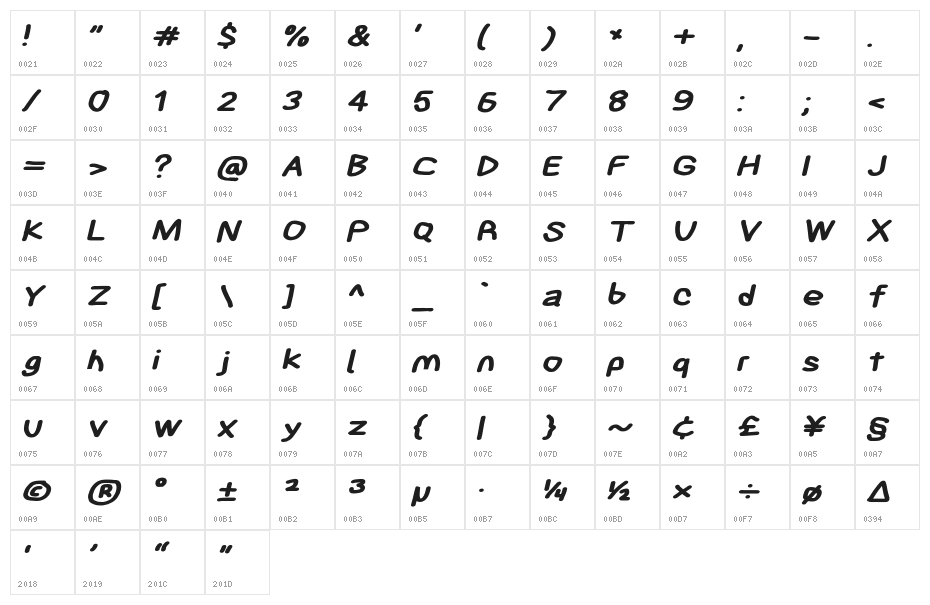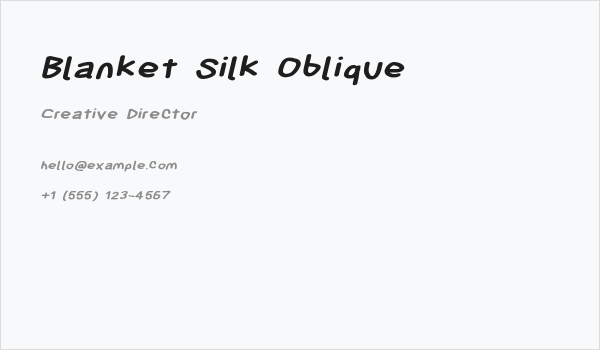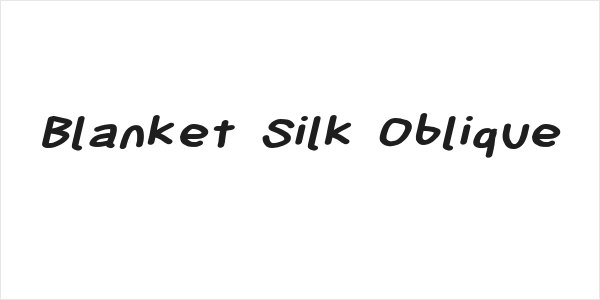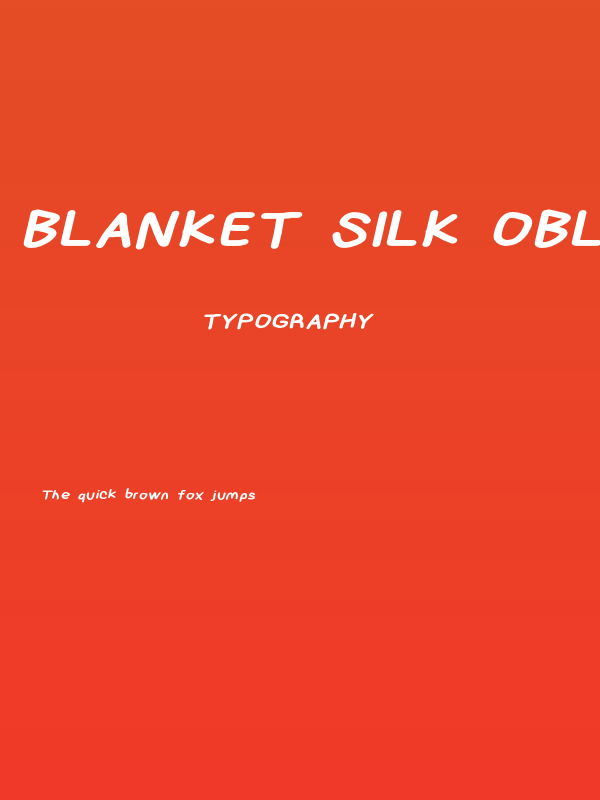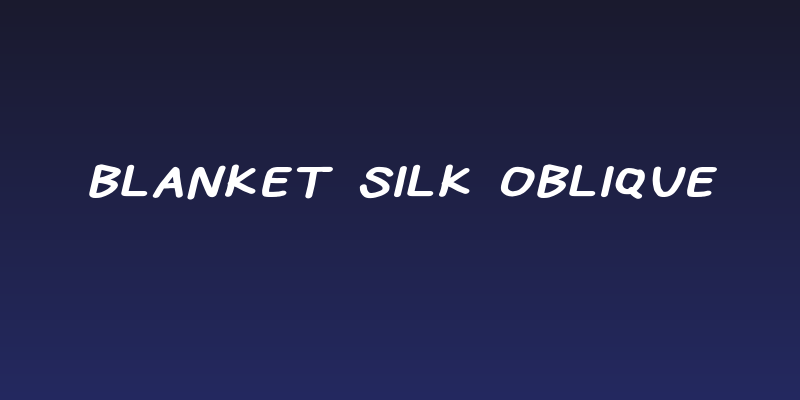
Blanket Silk Oblique Font
Blanket Silk Oblique Description
This font features a playful and dynamic style with a handwritten appearance. The characters are slightly slanted, giving an oblique effect that adds a sense of motion and fluidity. The strokes are rounded and smooth, contributing to a friendly and approachable look. Uppercase and lowercase letters maintain a consistent style, while numbers and special characters are clearly legible and harmoniously integrated. The overall design is informal yet clear, making it suitable for creative and casual applications.
| Proposed Projects | Ideal for greeting cards, children's books, casual branding, and playful social media graphics. |